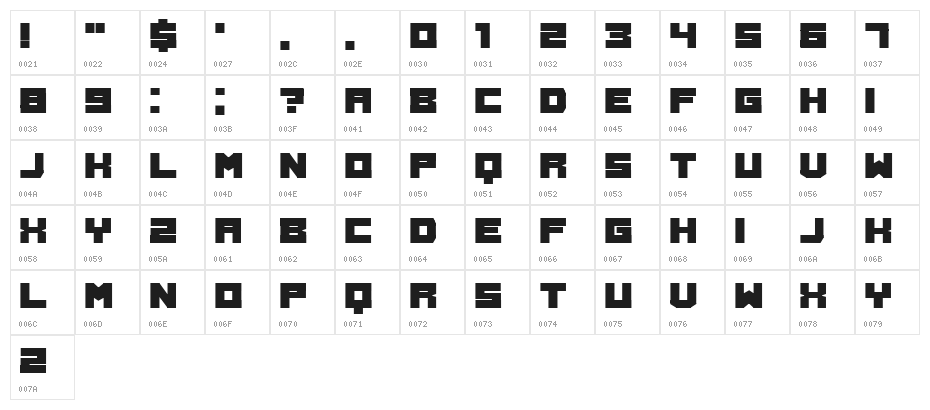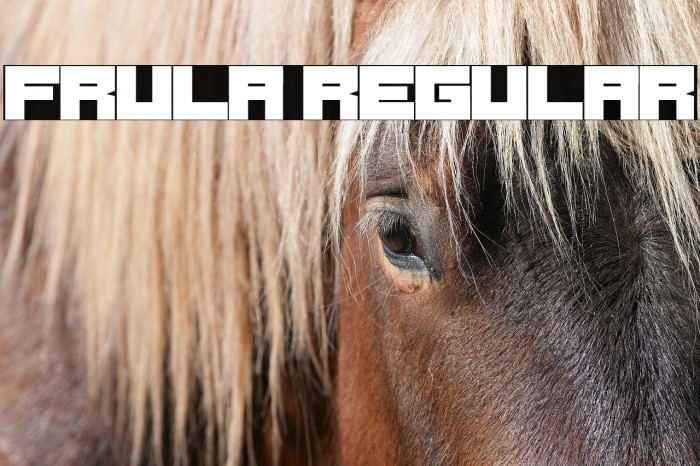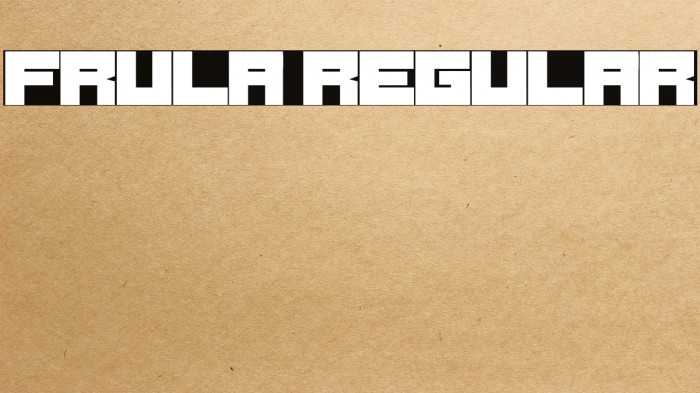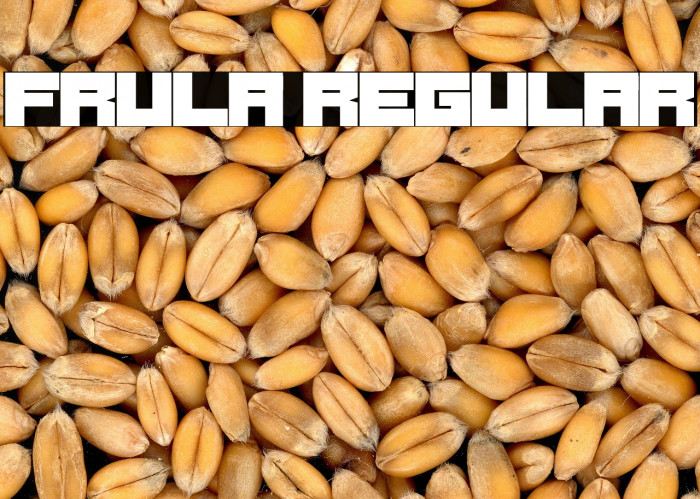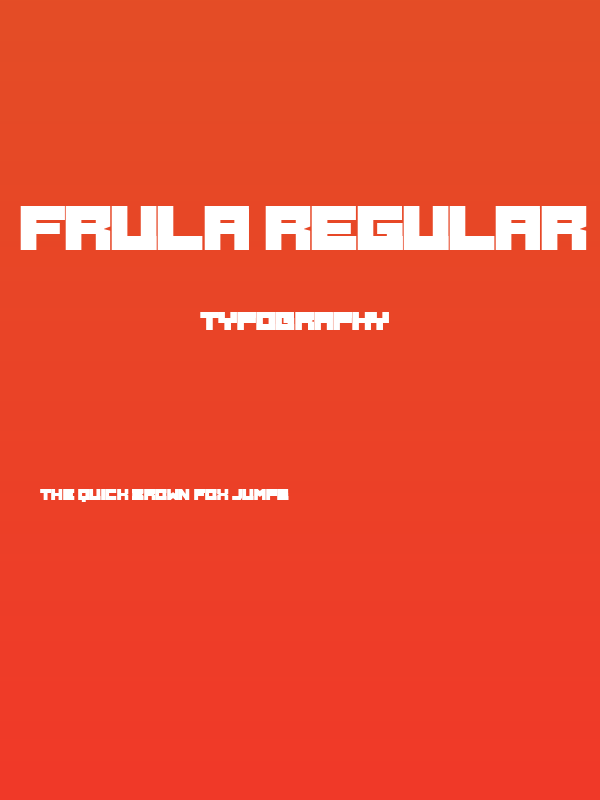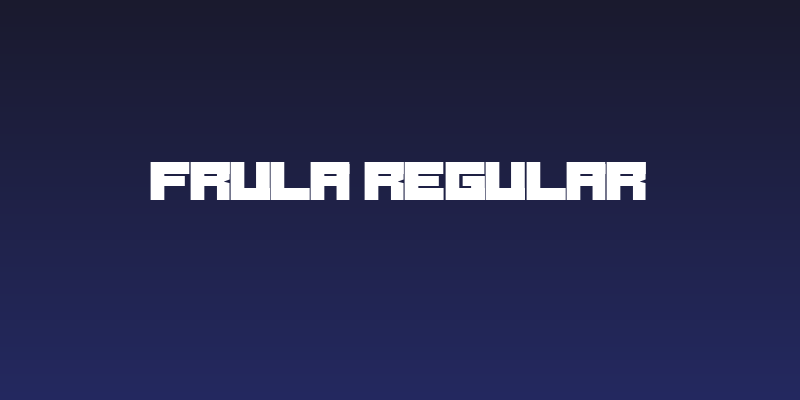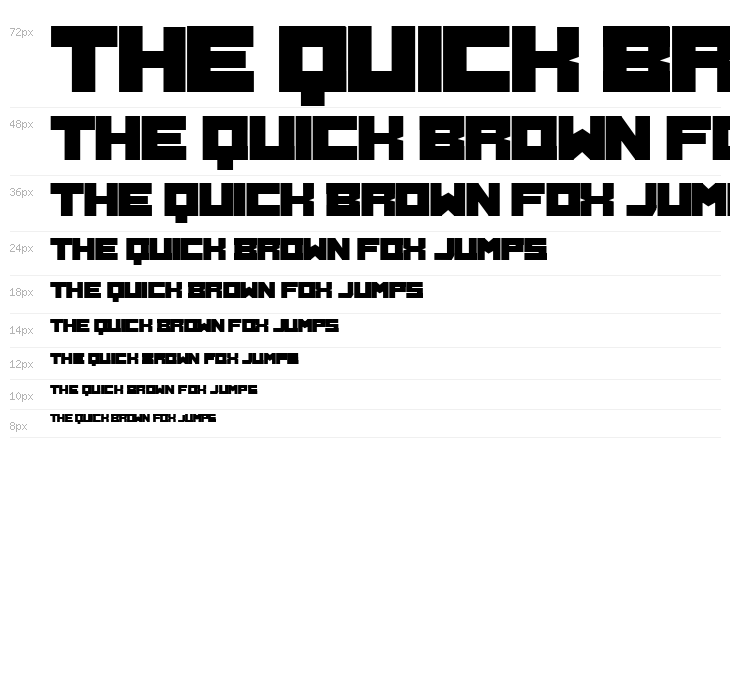
Frula Regular Font
Frula Regular Description
This font features a bold, geometric design with a strong presence. The characters are constructed with sharp angles and straight lines, creating a modern and futuristic appearance. The uppercase letters are uniform in height, while the numbers and special characters maintain the same bold style. The font's blocky nature gives it a distinctive and commanding look, making it ideal for attention-grabbing designs. Its consistent weight and structure provide a sense of stability and strength, suitable for projects that require a bold statement.
| Proposed Projects | Ideal for posters, headlines, logos, and branding materials that require a strong visual impact. |